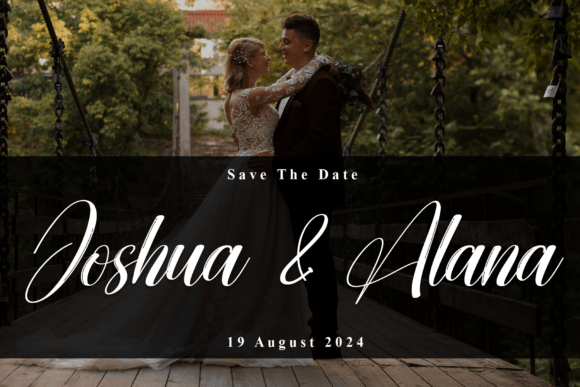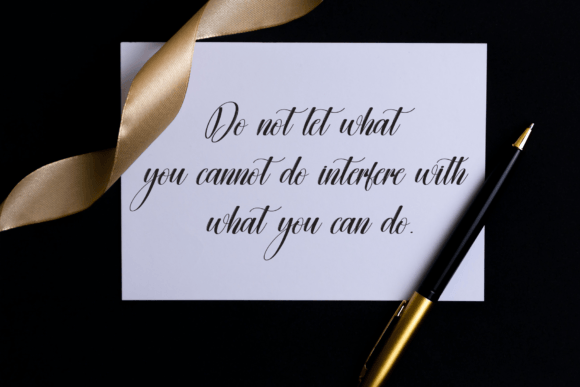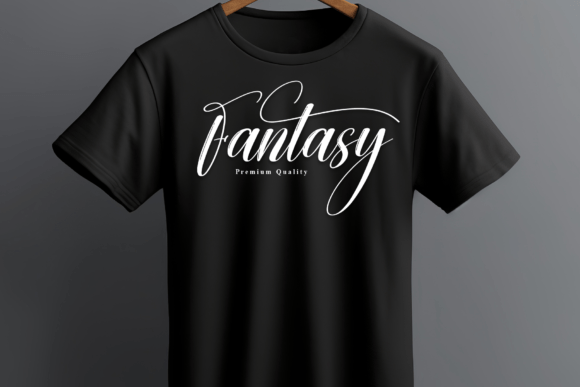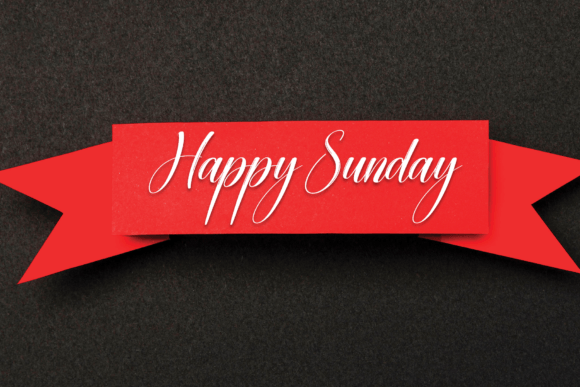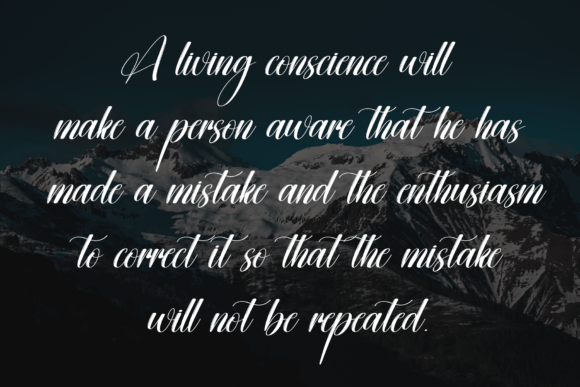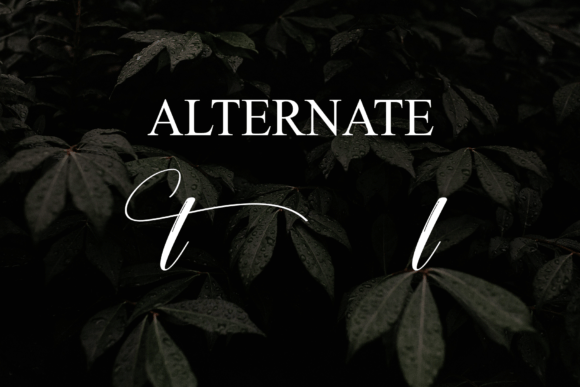
Creating Memories with the Perfect Font
Do you remember the moment when you finally found the perfect font for your wedding invitation? The one that captured the essence of your special day and made it feel like a fairytale? For many designers, that moment is a dream come true. It’s the moment when all the hard work and creativity come together to create something truly magical.
That’s where Aesthetic Font comes in – a stylish and elegant script font that adds a touch of sophistication to any design. Whether it’s a wedding invitation, a thank you card, or a logo, Aesthetic Font is the perfect choice for designers who want to create a lasting impression. Its versatility and beauty make it a valuable asset for any design project.
With Aesthetic Font, designers can add a handwritten touch to their designs, making them stand out from the crowd. Its value lies in its ability to evoke emotions and create a connection with the audience, making it a must-have for any designer looking to create memorable designs.
Aesthetic Font Key Features
- Unique Characteristics: Aesthetic Font features a unique blend of modern and vintage elements, with intricate details and ornate flourishes that add a touch of elegance to any design.
- Font Style: The font offers a range of styles, including regular, italic, bold, and bold italic, allowing designers to create visually appealing combinations and emphasize specific text elements.
- Language Support: Aesthetic Font supports a wide range of languages, including Latin, Cyrillic, and Greek, making it suitable for multilingual designs and publications.
- Scalability: The font is designed to be highly scalable, ensuring that it remains legible and visually appealing even at small font sizes or large display resolutions.
Aesthetic Font Review
I’ve had the chance to work with the Aesthetic Font, and overall, I’m impressed by its unique blend of elegance and sophistication. ✨ The font’s curvaceous lines and subtle flourishes give it a high-end feel that’s perfect for luxury brands or high-end publications.
One of the standout features of the Aesthetic Font is its versatility. ✨ It works beautifully in both print and digital formats, and its OpenType features allow for advanced typography capabilities. The font also includes a wide range of languages, making it a great choice for global brands.
- ⚠️ The Aesthetic Font may be too ornate for some designs, particularly those that require a more straightforward or modern aesthetic.
- ⚠️ The font’s complexity can make it difficult to customize or pair with other fonts, especially for designers who are new to advanced typography.
Overall, the Aesthetic Font is a solid choice for designers who want to add a touch of luxury to their projects. While it may have some limitations, its unique look and feel make it a great option for high-end brands or publications.